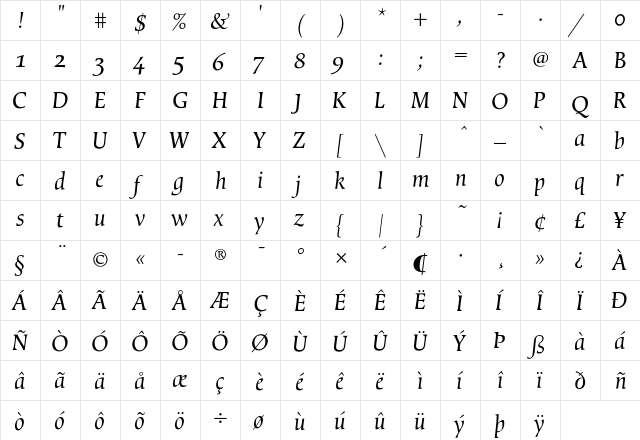
Gancello Regular Font Preview
Gancello Regular
Gancello Regular Font Details
Design Context for Gancello Typeface
Gancello takes a measured approach to typography — its balanced proportions and neutral character make it a reliable workhorse for both digital and print work.